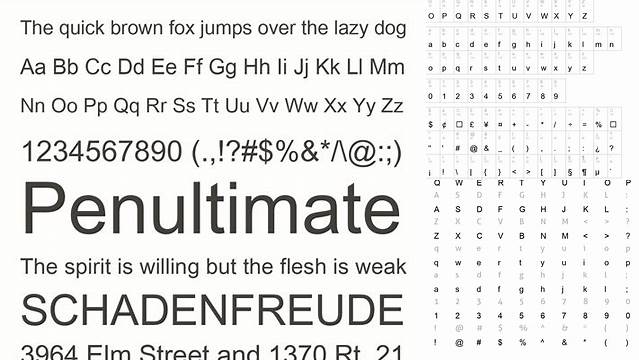
1. What is Arial Unicode MS?
Arial Unicode MS is a comprehensive Unicode font that includes a vast range of characters, making it suitable for multilingual text. It's based on the popular Arial typeface but includes glyphs for many more writing systems. This makes it particularly useful for documents that need to support multiple languages or special symbols. For those working with Indic scripts like Marathi, having a reliable Unicode font like Arial Unicode MS is super important. It ensures your text displays correctly, no matter what device or platform it's viewed on.
Arial Unicode MS is not just a font; it's a solution for global communication. Its extensive character set means you can use it for everything from basic English to complex scripts from around the world. The design is clean and legible, making it a great choice for both body text and headlines. Plus, its widespread availability means that most users will already have it installed on their computers. This reduces the risk of your documents displaying incorrectly on other people's machines. If you're dealing with a variety of languages, Arial Unicode MS is a font you can rely on to get the job done right. Using this font is a great way to ensure that your text is accessible to a wider audience.
2. Why Use Arial Unicode MS for Marathi?
When it comes to writing Marathi on computers, having the right font is crucial. Arial Unicode MS is a fantastic choice because it supports the Devanagari script, which is used for Marathi. This means you can type Marathi text without worrying about it turning into boxes or gibberish. Arial Unicode MS ensures that your Marathi content is displayed correctly and legibly. This is super important for everything from writing emails to creating documents and designing websites.
Using Arial Unicode MS for Marathi is also beneficial because it's a widely recognized and supported font. This means that people who view your documents or visit your website are likely to see the text as you intended. The font is designed to be clear and easy to read, which enhances the overall user experience. Plus, because it's a Unicode font, it can handle a wide range of characters and symbols, making it versatile for various types of content. Whether you're writing a formal report or a casual blog post, Arial Unicode MS can help you communicate your message effectively in Marathi. It's a reliable and accessible option for anyone working with this beautiful language.
Before you go hunting for a download, let's make sure you don't already have Arial Unicode MS on your computer! Most of the time, it comes pre-installed with Microsoft Office. To check, open up Word or any other word processing program. Go to the font selection menu and scroll through the list. If you see “Arial Unicode MS,” then you're all set! You can start using it right away. If you don't see it, don't worry; we'll explore some alternatives in the following sections. But always double-check first – you might be surprised!
If you're using a Mac, the process is pretty similar. Open TextEdit or another text editor, go to the font menu, and look for Arial Unicode MS in the list. If you find it, you're good to go! If not, you'll need to explore other options. Keep in mind that the font name might be slightly different depending on your operating system or software version. For example, it might be listed as “Arial Unicode” or “Arial Unicode Regular.” So, be sure to look carefully and consider any variations. If you're still unsure, you can try searching for the font in your computer's file system. This can help you confirm whether or not it's installed. Remember, checking if you already have the font is the first step in saving time and avoiding unnecessary downloads.